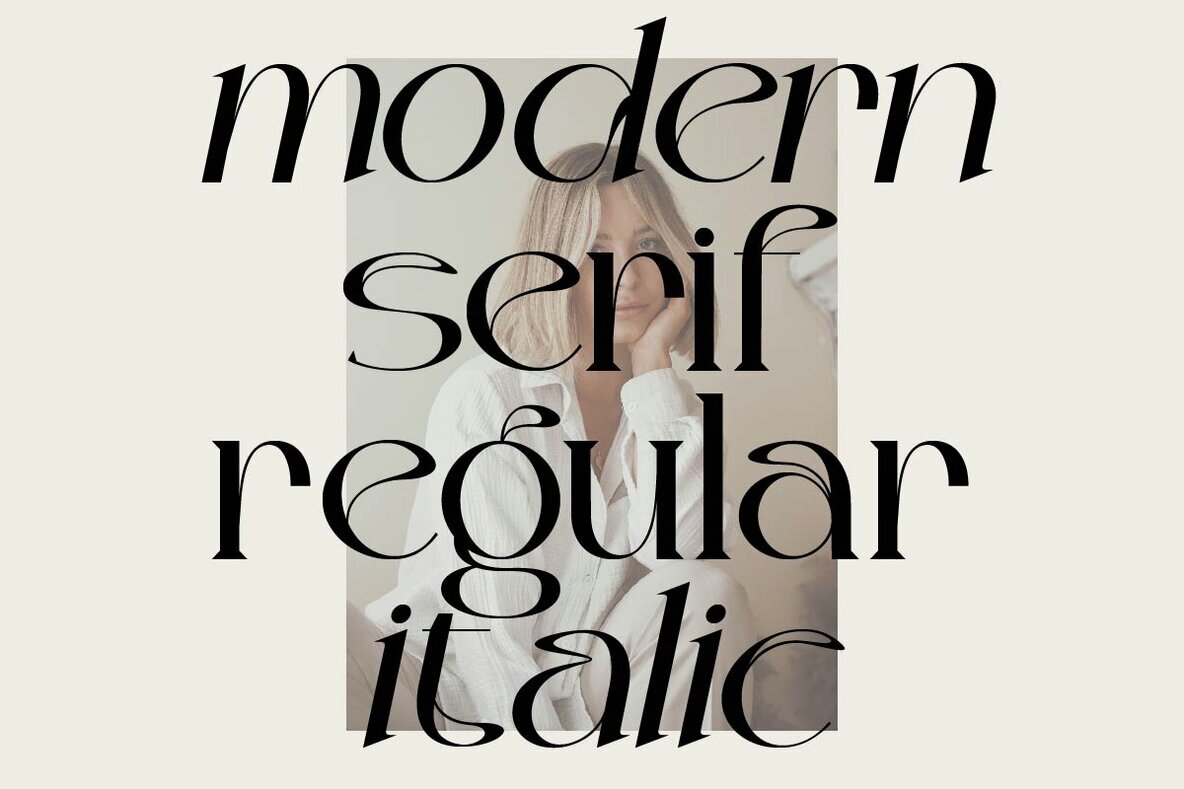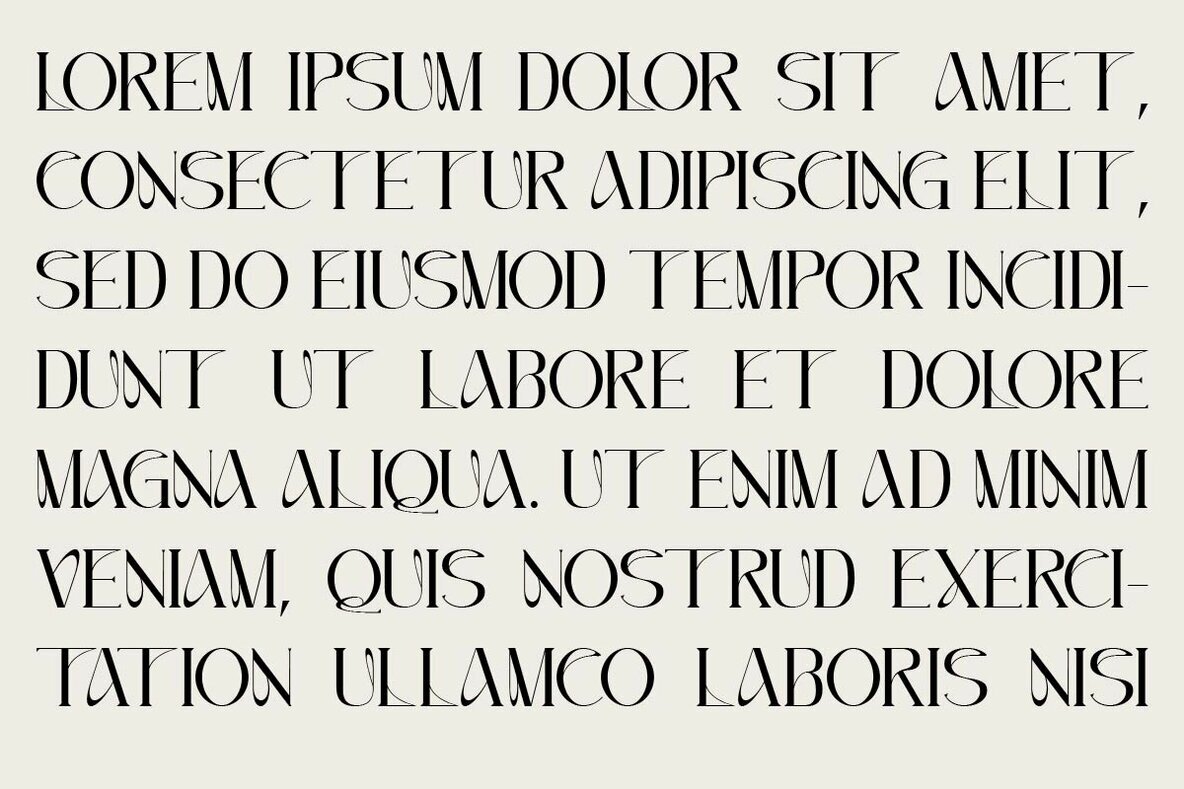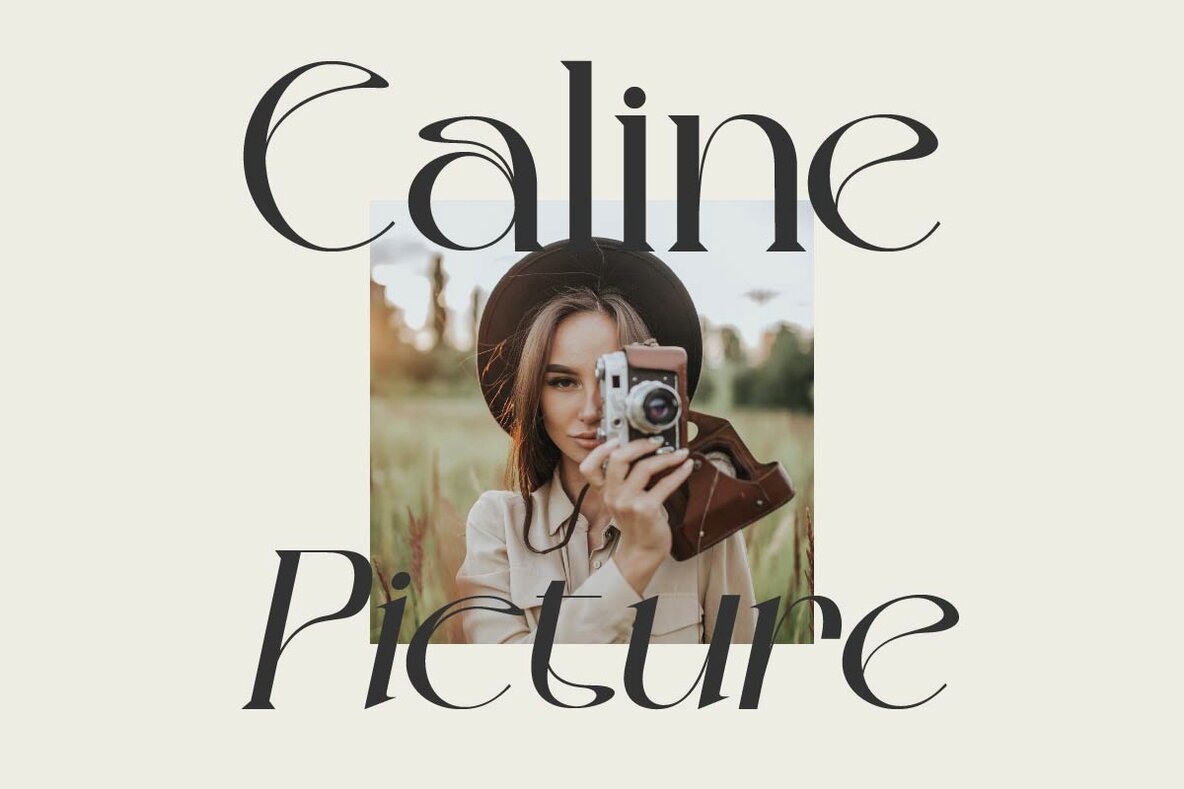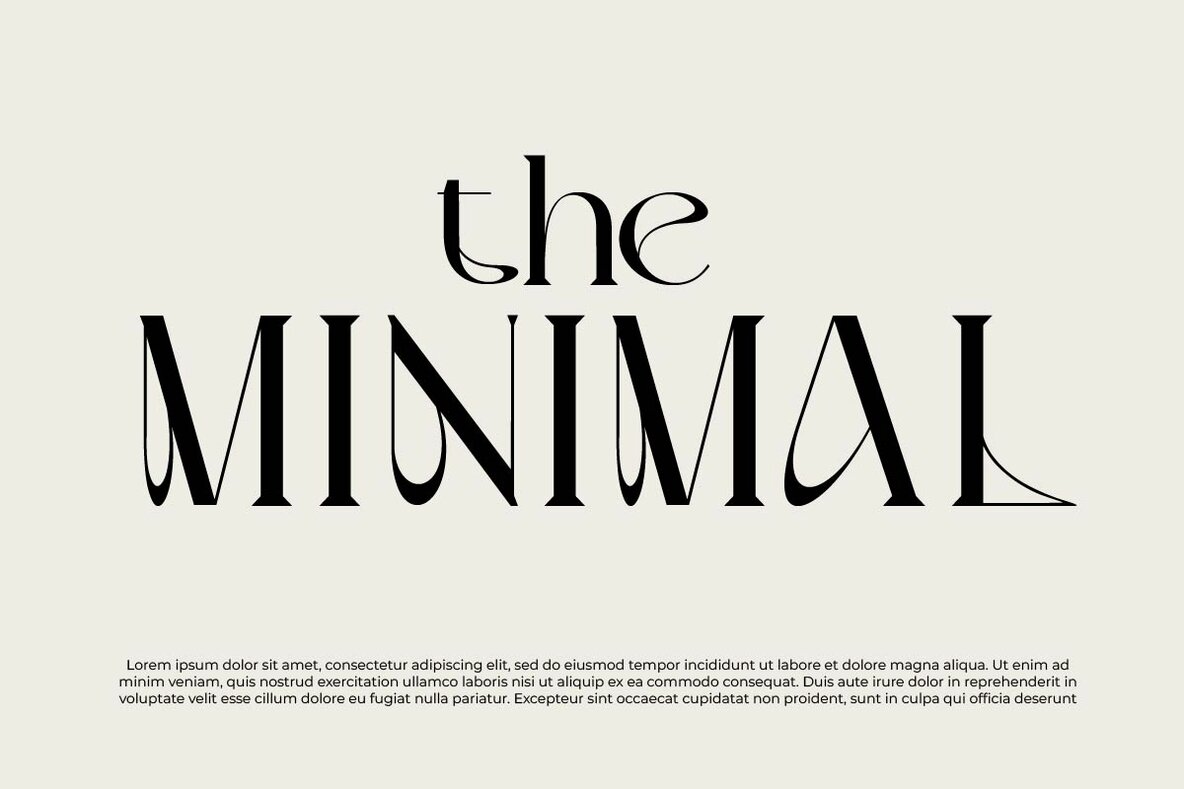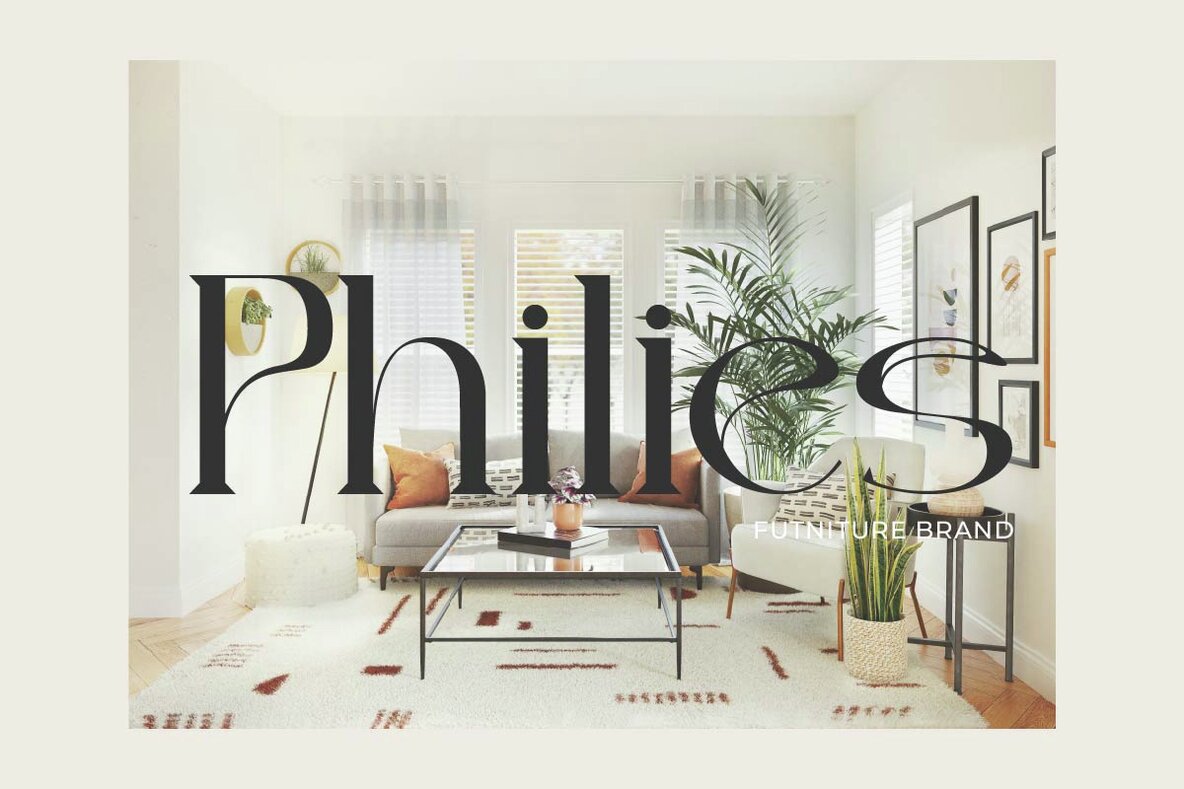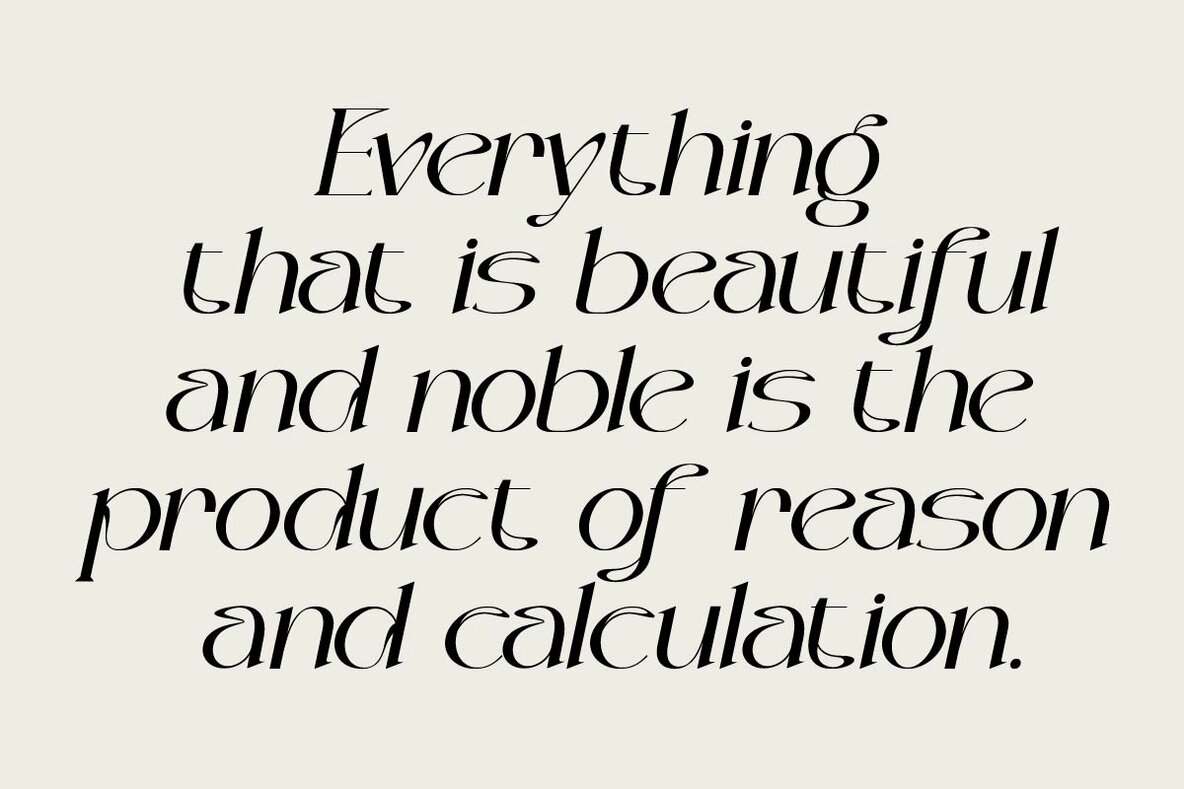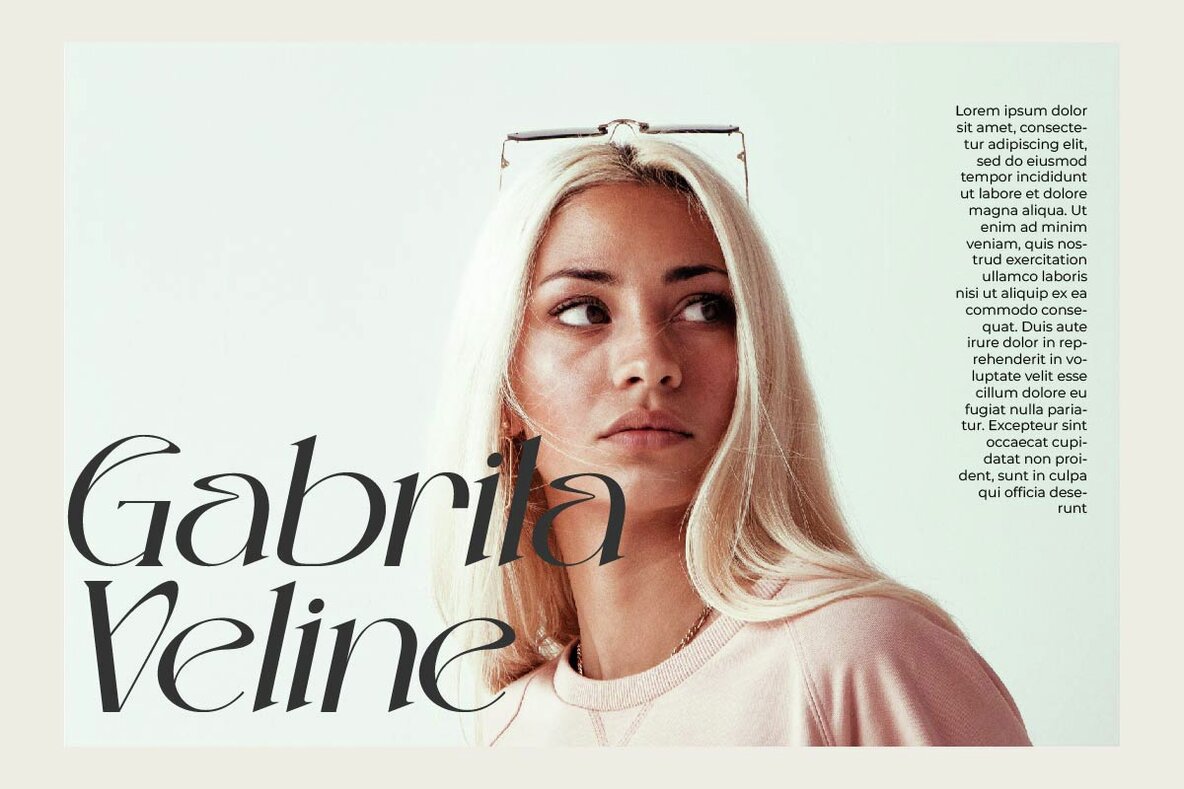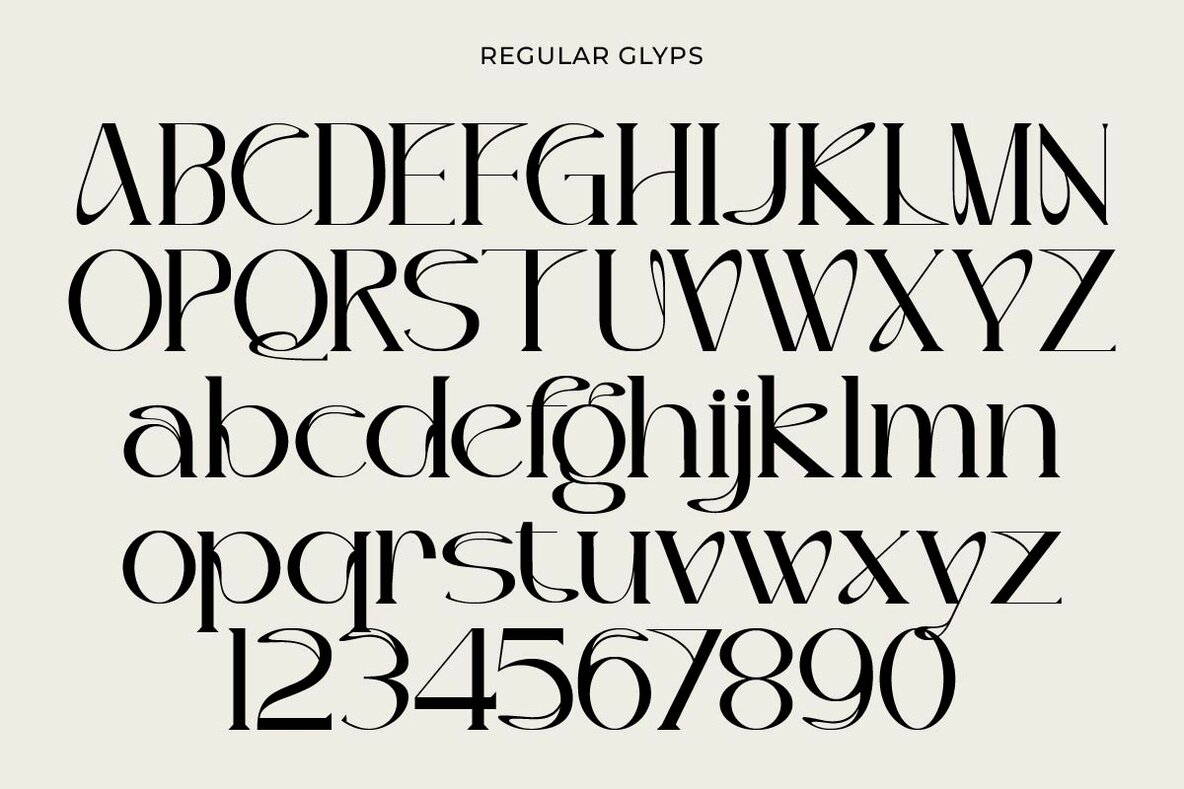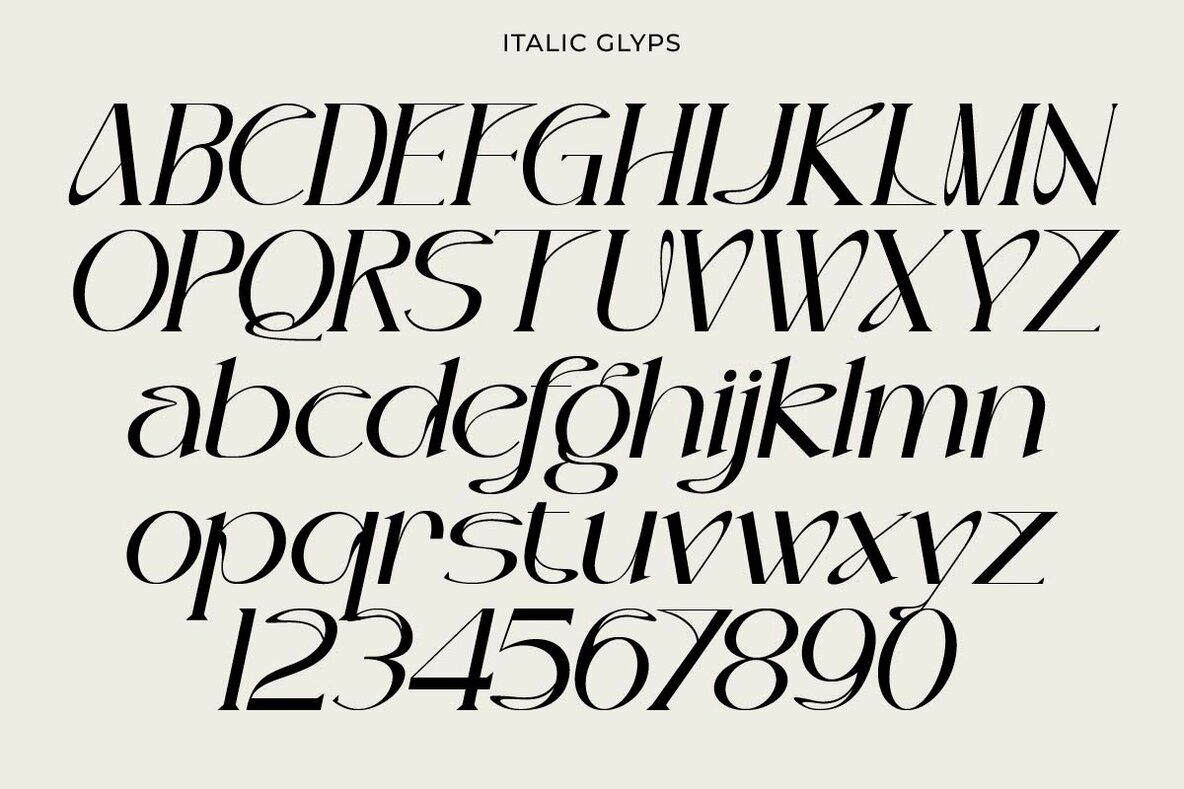
Mariella Noeve Font
Mariella Noeve is a modern-style serif font that seamlessly blends traditional elements with a contemporary flair. Featuring both regular and italic styles, each letter in the Mariella Noeve collection is meticulously crafted to convey a professional and modern impression in any design setting. This refined serif font is ideally suited for a variety of design projects, including modern-themed branding logos. Its clarity and readability make Mariella Noeve the perfect choice for enhancing the appearance and impact of your designs.Mariella Noeve: Modern Serif with a Contemporary Touch